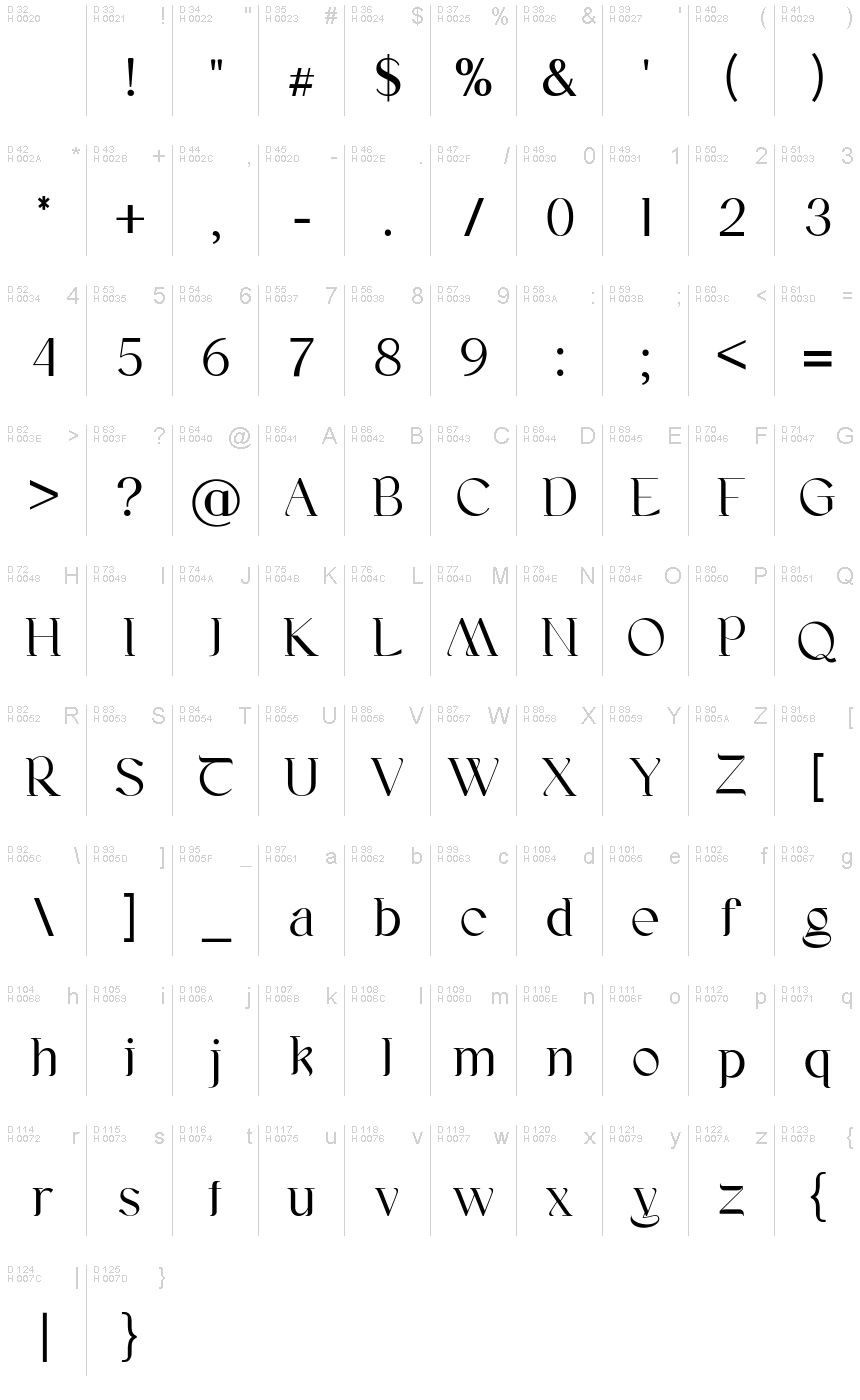
Aishwarya
Aishwarya is a captivating serif font crafted by UI Creative. Exuding a timeless elegance, its refined letterforms and delicate serifs evoke a sense of sophistication and effortless charm. The font's subtle variations in stroke thickness and graceful curves lend an air of understated sophistication, making it a versatile choice for a wide range of design projects.
This font's adaptability shines through in its ability to seamlessly transition between formal and informal settings. Its refined aesthetic makes it an excellent selection for editorial layouts, book covers, and high-end branding, while its approachable qualities also lend themselves well to packaging, advertising, and web design. Aishwarya's versatility allows designers to craft memorable, visually striking compositions that captivate the audience.